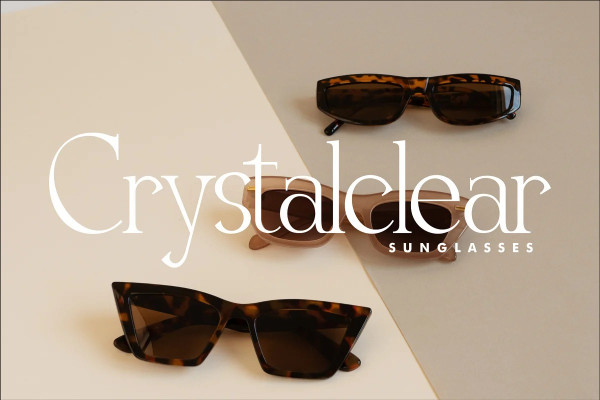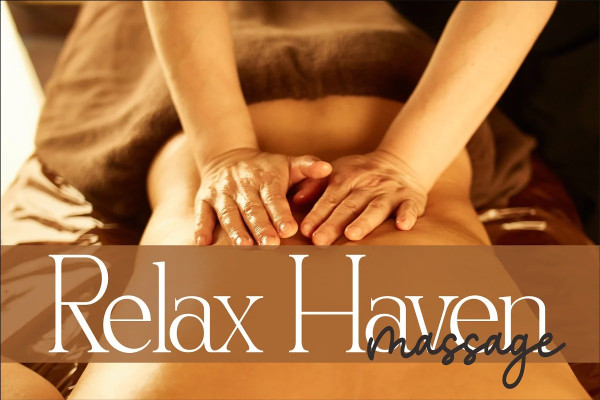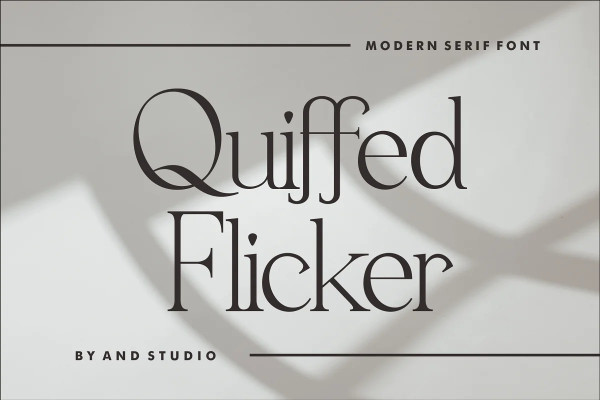
Quiffed Flicker Font
Quiffed Flicker Font, a Luxury serif is a font that combines classic elegance with a fresh modern touch. Created with meticulous detail and precision, this font exudes an elegant and professional impression in every design that utilizes it.
With smooth lines and balanced proportions, Quiffed Flicker brings high clarity and readability. Each letter is carefully designed, blending subtle and contemporary serif elements, creating a harmony between traditional and modern aesthetics.
The standout feature of Quiffed Flicker is its versatility in various design contexts. Whether used for headlines, body text, or a combination of both, this font provides a sophisticated and professional look. Whether you’re designing a logo, book layout, marketing materials, or a website, Modist will infuse the elegant touch you need.